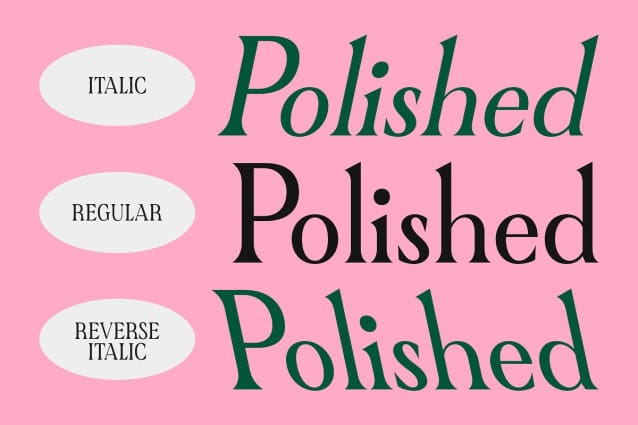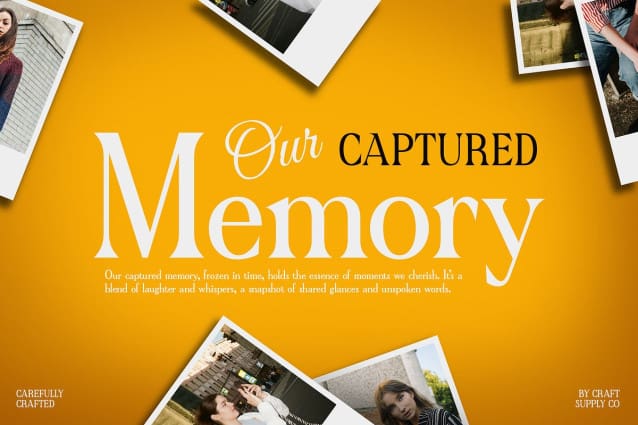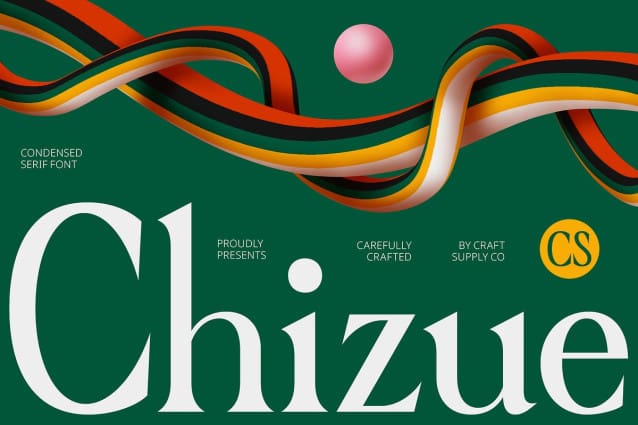
CS Chizue Font
CS Chizue Font is a modern condensed serif font featuring narrow, sleek letterforms that embody professionalism and sophistication. Its streamlined design maximizes space efficiency, making it an excellent choice for professional applications like corporate branding, formal documents, and editorial layouts.
Efficient Use of Space The compact design of CS Chizue allows more text to fit within limited spaces without sacrificing readability or style. This makes it perfect for headlines, reports, and other professional documents where space is at a premium yet clarity and elegance are essential.
Clean Lines and Refined Details CS Chizue’s clean lines and refined details convey a sense of authority and elegance. Its polished appearance ensures a confident and sophisticated look in any professional setting, making it a versatile choice for a wide range of design projects.
Elevate Professional Designs with CS Chizue Whether you’re creating corporate branding, formal documentation, or editorial layouts, CS Chizue provides the perfect balance of space efficiency, elegance, and professional appeal. Its sleek design ensures your work stands out with a polished and confident presence.